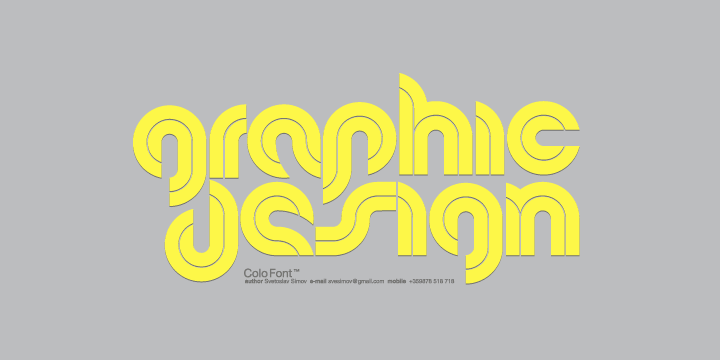
This display sans-serif typeface is perfect for branding, logos, posters, t-shirts, and social media graphics.
The Colo Font is exciting because its bold, geometric design with a layered, futuristic aesthetic creates striking, modern visuals for diverse projects.
Its font family includes Colo Pro Regular and Colo Pro Black, offering two styles for versatile applications.
Looking for a font that delivers a bold, modern edge? Colo Font Free Download is an ideal choice for designers seeking a display sans-serif typeface. Designed by Svetoslav Simov and published by Fontfabric in 2009, the Colo Font family, including Colo Pro Regular and Colo Pro Black, features a geometric, layered design with a futuristic vibe. Perfect for both digital and print projects, it’s a go-to for creating impactful visuals, from branding to promotional materials.
The Colo Font excels in applications requiring a striking, contemporary aesthetic. It’s a top choice for logos, where its bold, double-lined characters add a unique flair for tech startups or streetwear brands. Designers use it for posters, ensuring eye-catching headlines for events like music festivals or art exhibitions. T-shirts and merchandise benefit from its modern, graphic-heavy style. Social media creators leverage it for Instagram posts, TikTok overlays, or YouTube thumbnails, boosting engagement with its standout look. Its versatility also suits motion graphics and packaging.
What makes the Colo Font Free Download so captivating is its bold, geometric structure that creates a sense of depth through its layered effect. Available in OpenType format, it includes 575–583 glyphs, supporting Latin-based languages, and is compatible with tools like Adobe Illustrator or InDesign. Its @font-face support allows seamless web embedding via CSS, ensuring consistent typography online. While it lacks extensive OpenType features like ligatures, its clean, futuristic design ensures versatility for headlines and logos.
The Colo Font family includes Colo Pro Regular for a balanced, modern look and Colo Pro Black for maximum impact in bold headlines or logos. These two styles provide flexibility for creating cohesive, dynamic visuals across various applications. Fontfabric, founded by Svet Simov in 2008, is known for high-quality fonts used by brands like Nike and Nestlé, adding credibility to this typeface.